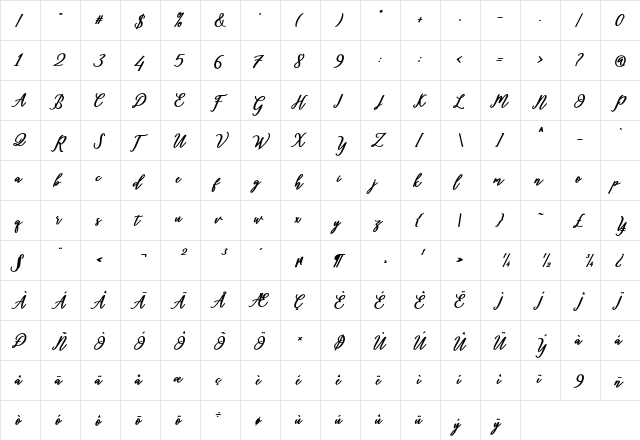
Diantha Regular
| Foundry | Takiyuddin |
| Designer | takiyuddin |
Design Context for Diantha Typeface
Diantha takes a measured approach to typography — its balanced proportions and neutral character make it a reliable workhorse for both digital and print work.